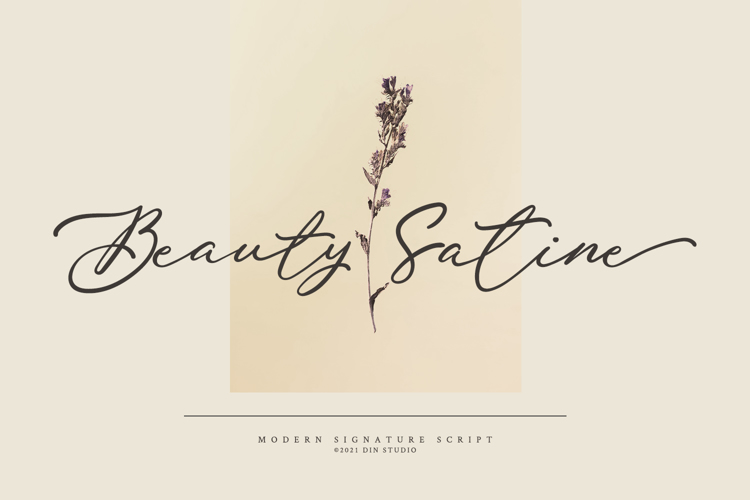
Beauty Satine Font
Product Description :
Beauty Satine. This font is not only just a signature font. It encapsulates the essence of elegance and modernity. With its clean script-type design and curved indentations, this font will take your projects to the next level! Use it for headings, logos, business cards, printed quotes, invitations of all sorts, cards,
packaging, and your website or social media branding.
Features include:
• Alternates
• Ligatures
• Stylistic Set
• Multilingual Supports
• Numerals and Punctuations